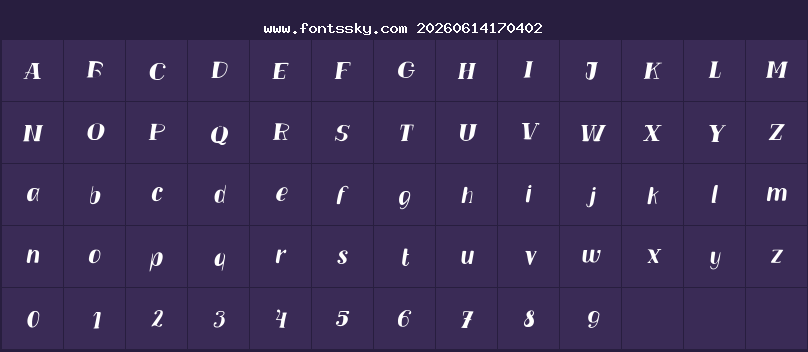
TM Vinograd Filled Oblique Preview
• Font Name: TM Vinograd Filled Oblique
• Full Font Name: TM Vinograd Filled Oblique
• PostScript Name: TMVinograd-FilledOblique
• Designer: Vova Egoshin / Typemate
• Manufacturer: Vova Egoshin / Typemate
About TM Vinograd Filled Oblique.ttf
TM Vinograd Filled Oblique.ttf is a modern, elegant sans-serif font designed for ultimate readability and visual harmony. Perfect for branding, headlines, web design, and print materials.